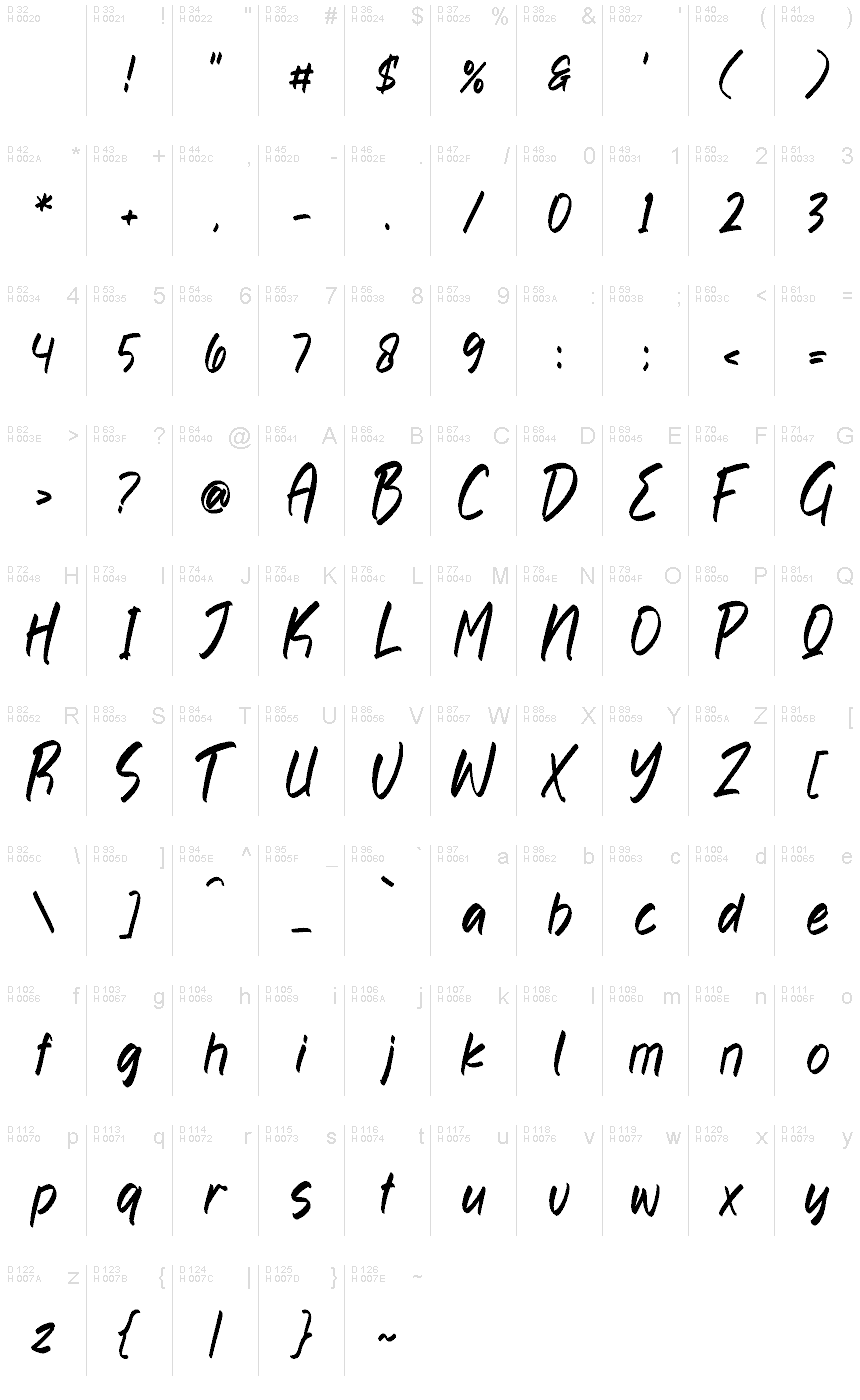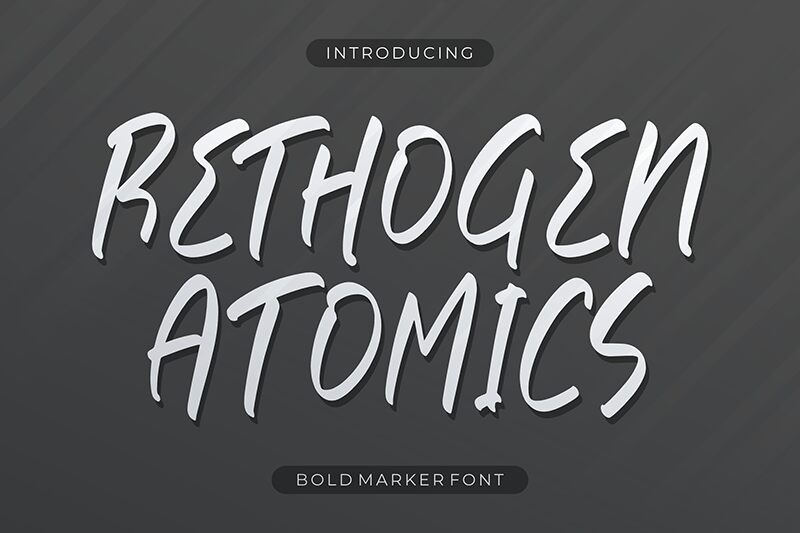
Rethogen Atomics
Rethogen Atomics font by Perspectype Studio at Letterena.com is a free handwritten font with expressive and energetic elements. This casual charm typeface carries an aura of spontaneous handwriting mixed with contemporary flair. It evokes individuality and modernity, making it suitable for creative brands and projects that want to communicate a personal feel.
Use Rethogen Atomics in advertising materials and packaging designs where you can complement the main info done in traditional fonts. Use it for logos, website designs, greeting cards, posters, brochures, magazines covers, catalogs, invitations of any kind plus merchandise design like t-shirts or cups.